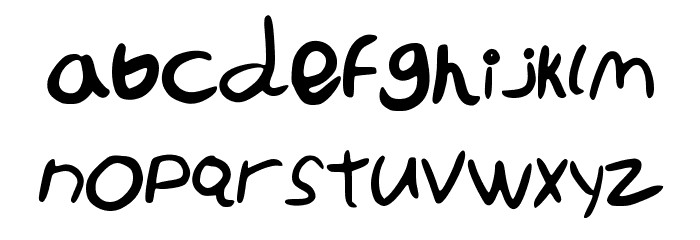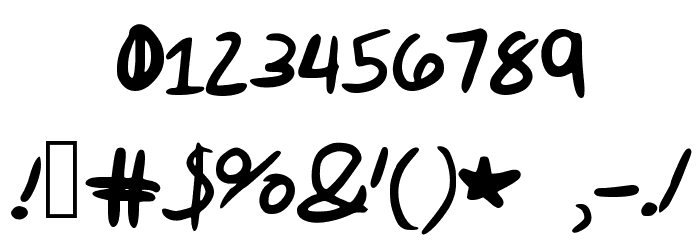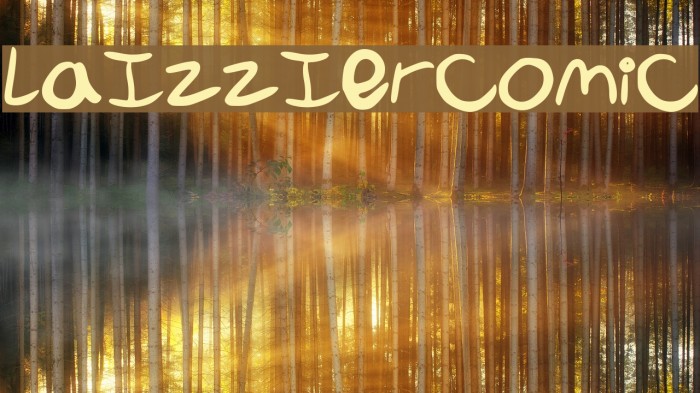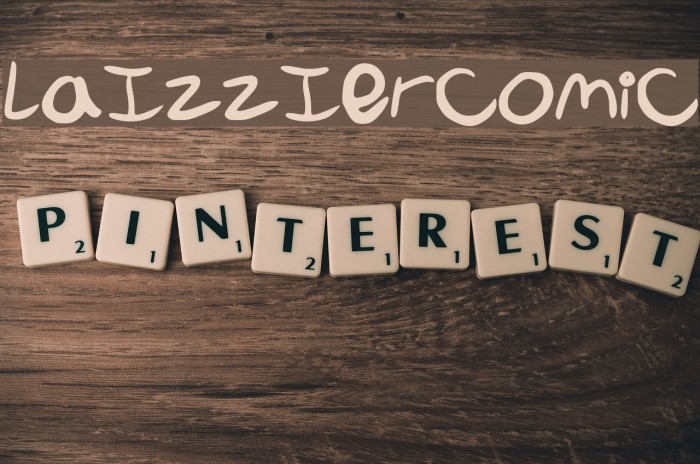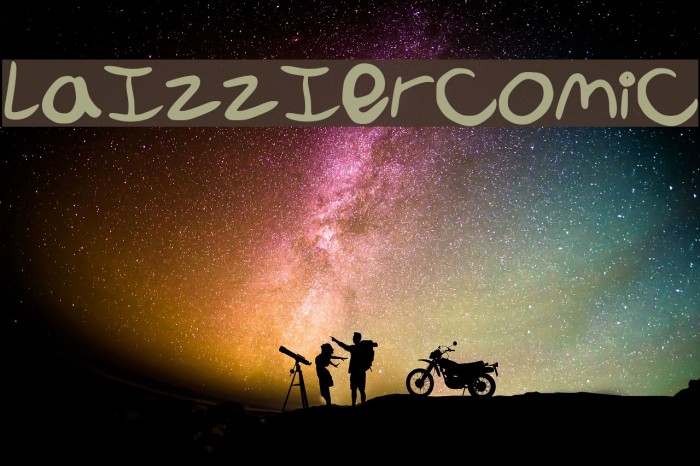
LaIzzIerComiC Font
This playful and whimsical font features a hand-drawn, comic-style appearance. The letters are slightly irregular, with a casual and informal feel, reminiscent of handwriting. The uppercase and lowercase characters maintain a consistent style, with rounded edges and a slight tilt, adding to the font's dynamic and lively nature. The numerals and special characters follow the same playful design, making the font suitable for creative and fun projects. Its overall appearance is approachable and friendly, making it ideal for capturing attention in a lighthearted manner.
A playful, comic-style font with a hand-drawn, informal appearance.
- Proposed Projects: Ideal for comic books, children's books, playful branding, greeting cards, and informal invitations.
- Overall Style: Playful
- Use Case: Headlines, Logos, Informal Text